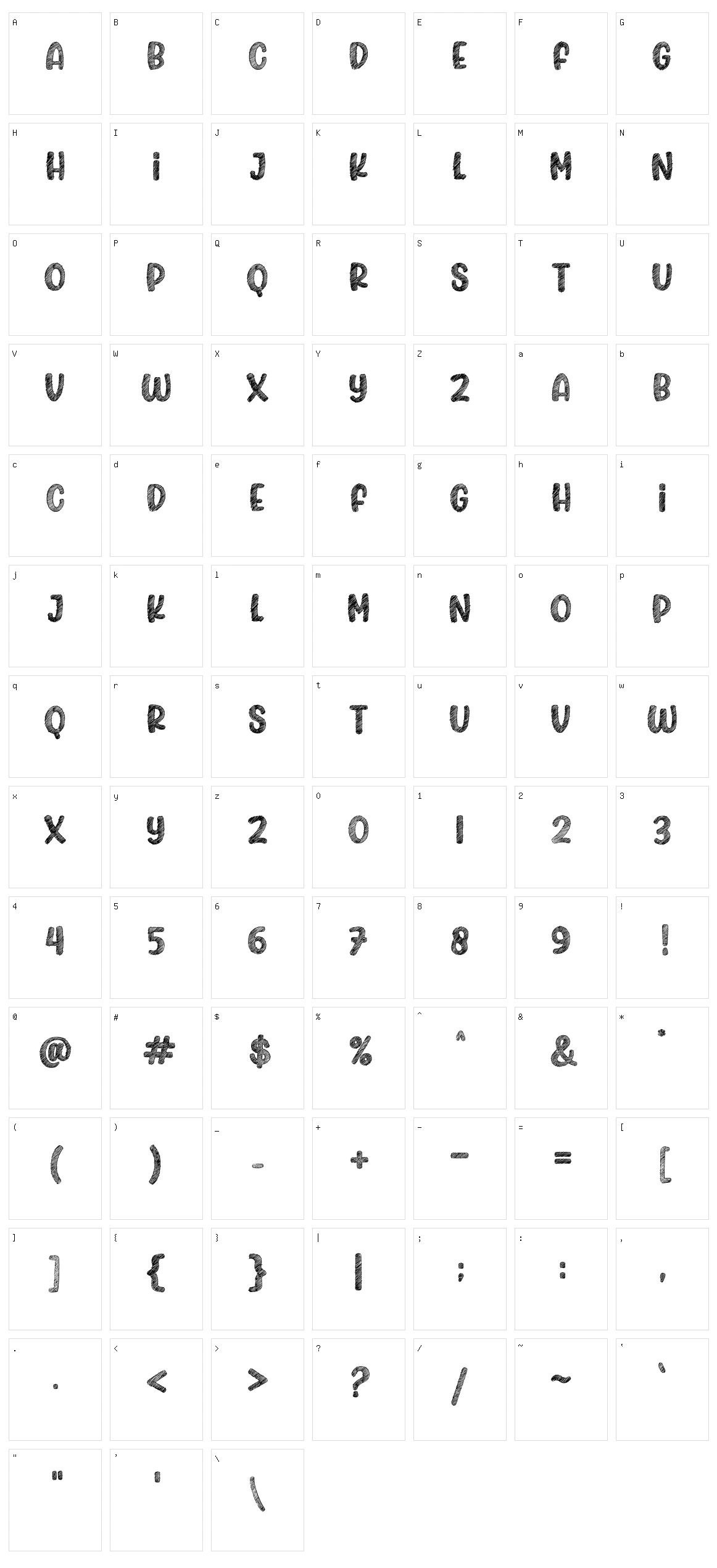
The free font Sketching Universe is carefully designed by Subectype & Orenari, showcasing a thoughtful balance of creativity and usability and falls under the Cartoon font style. When you download the ZIP file, it contains only 1203.48 KB of font files, making it lightweight and quick to download. Please review the license details below to understand permitted usage and distribution rights. If license information is not available, we recommend using this font for personal projects only or contacting the author directly for commercial usage permissions.